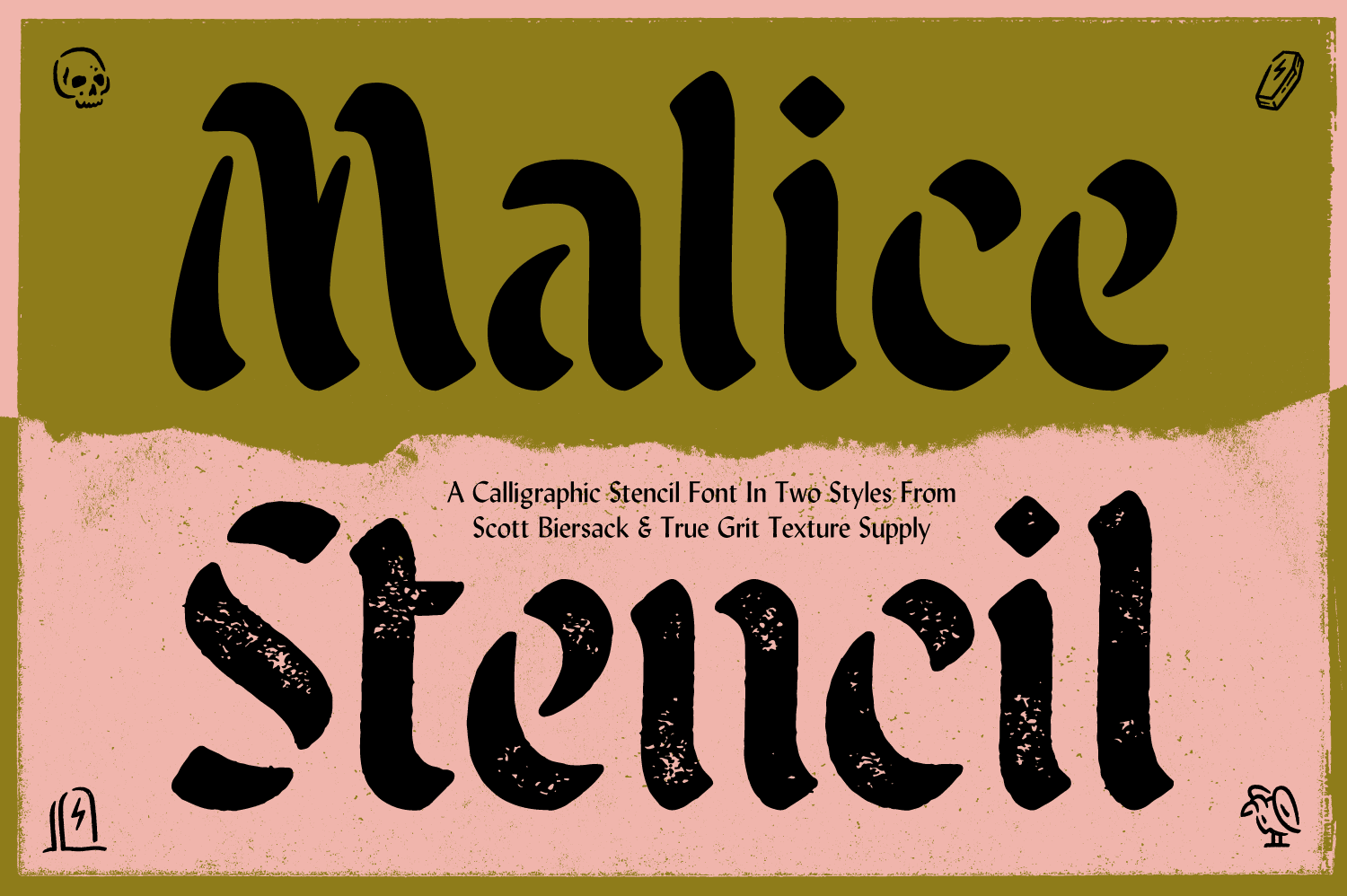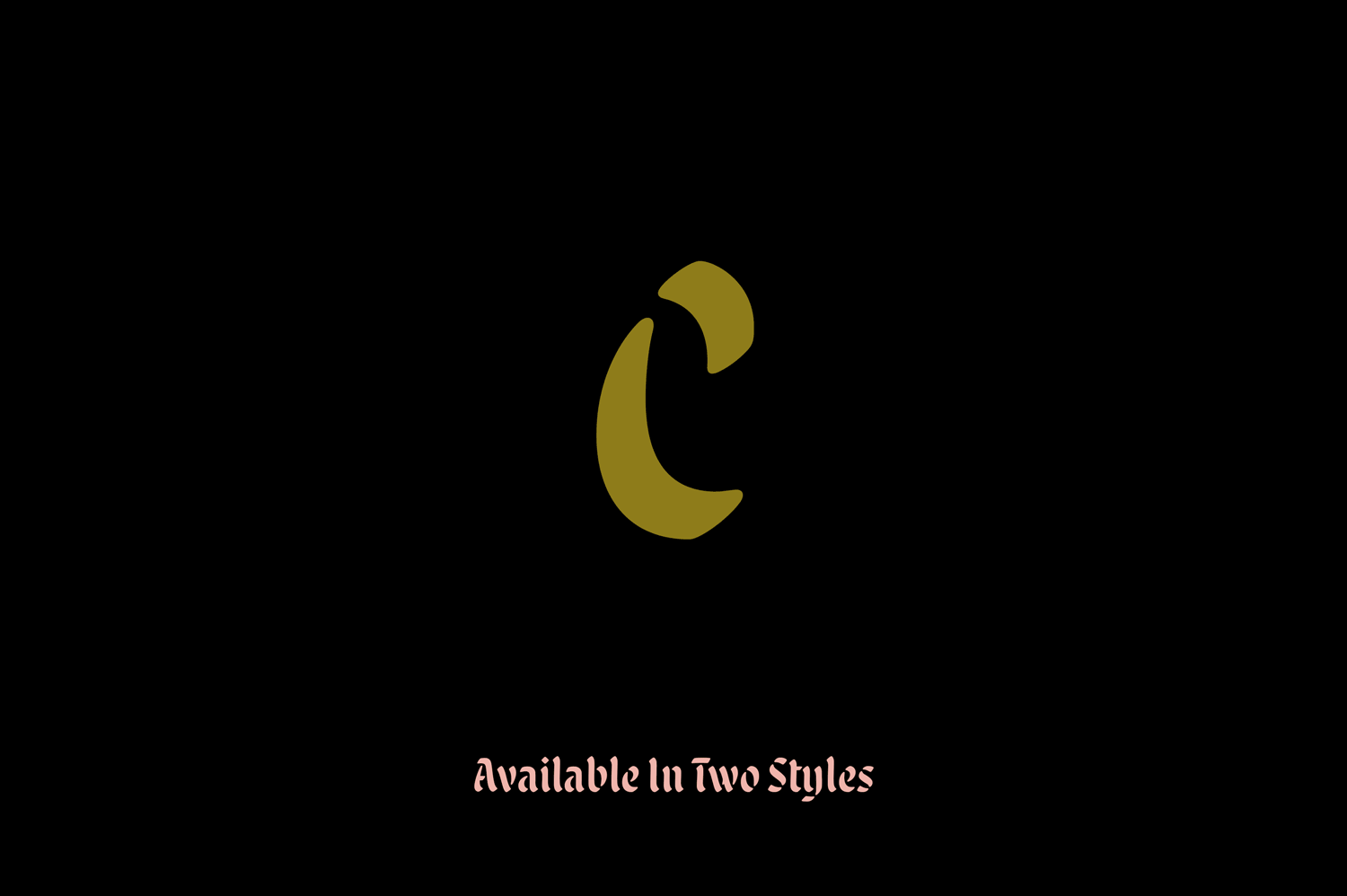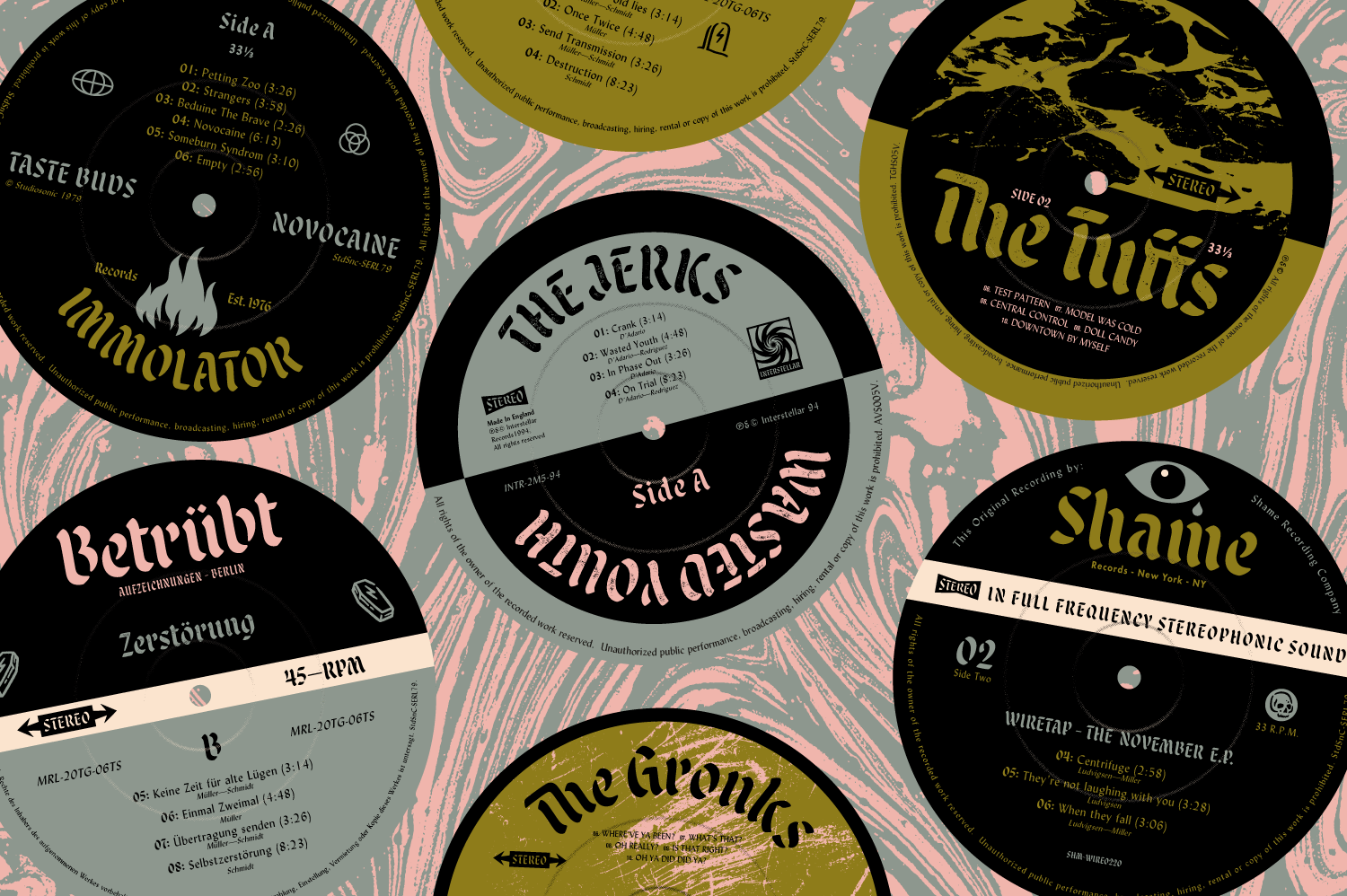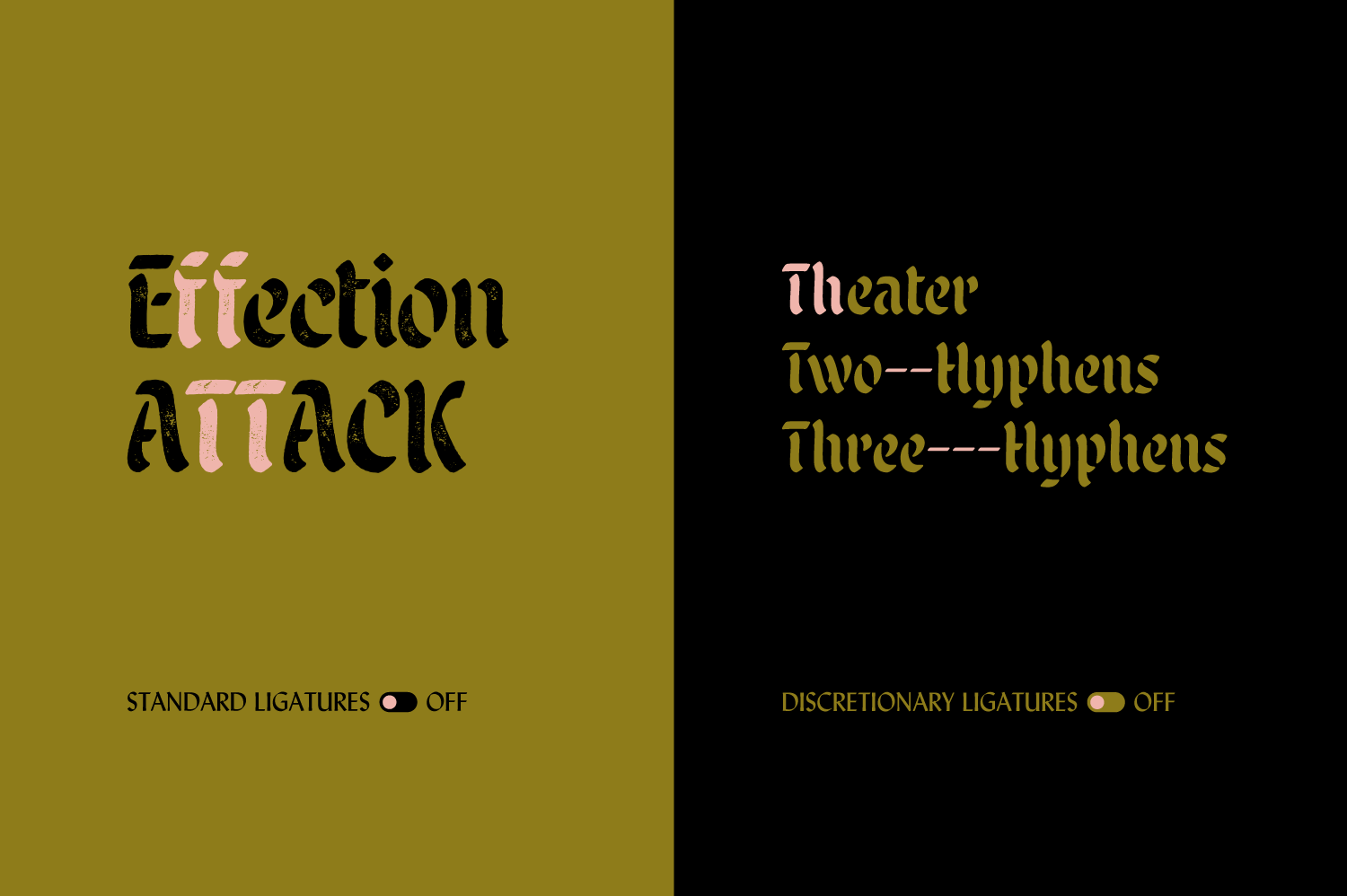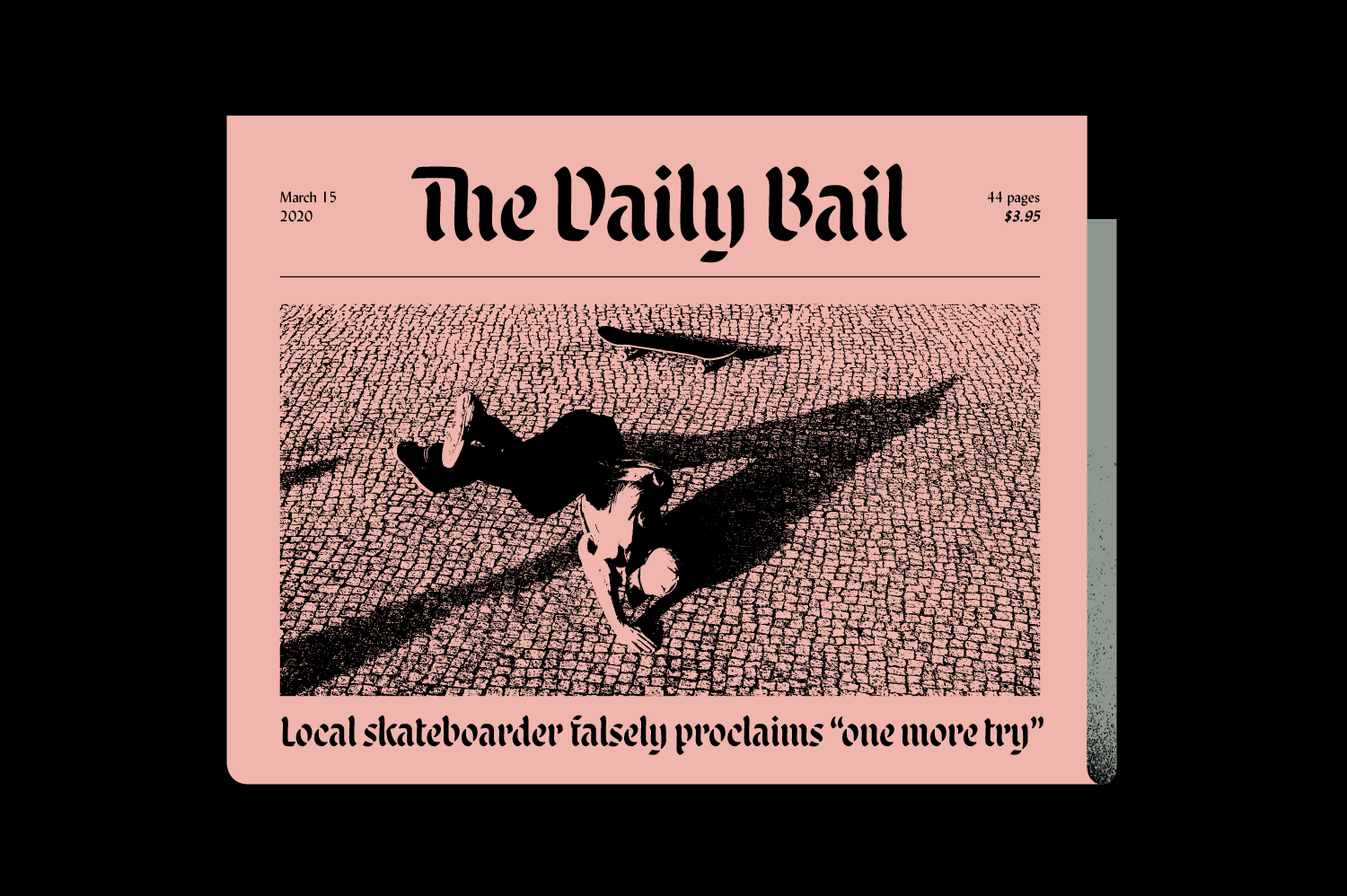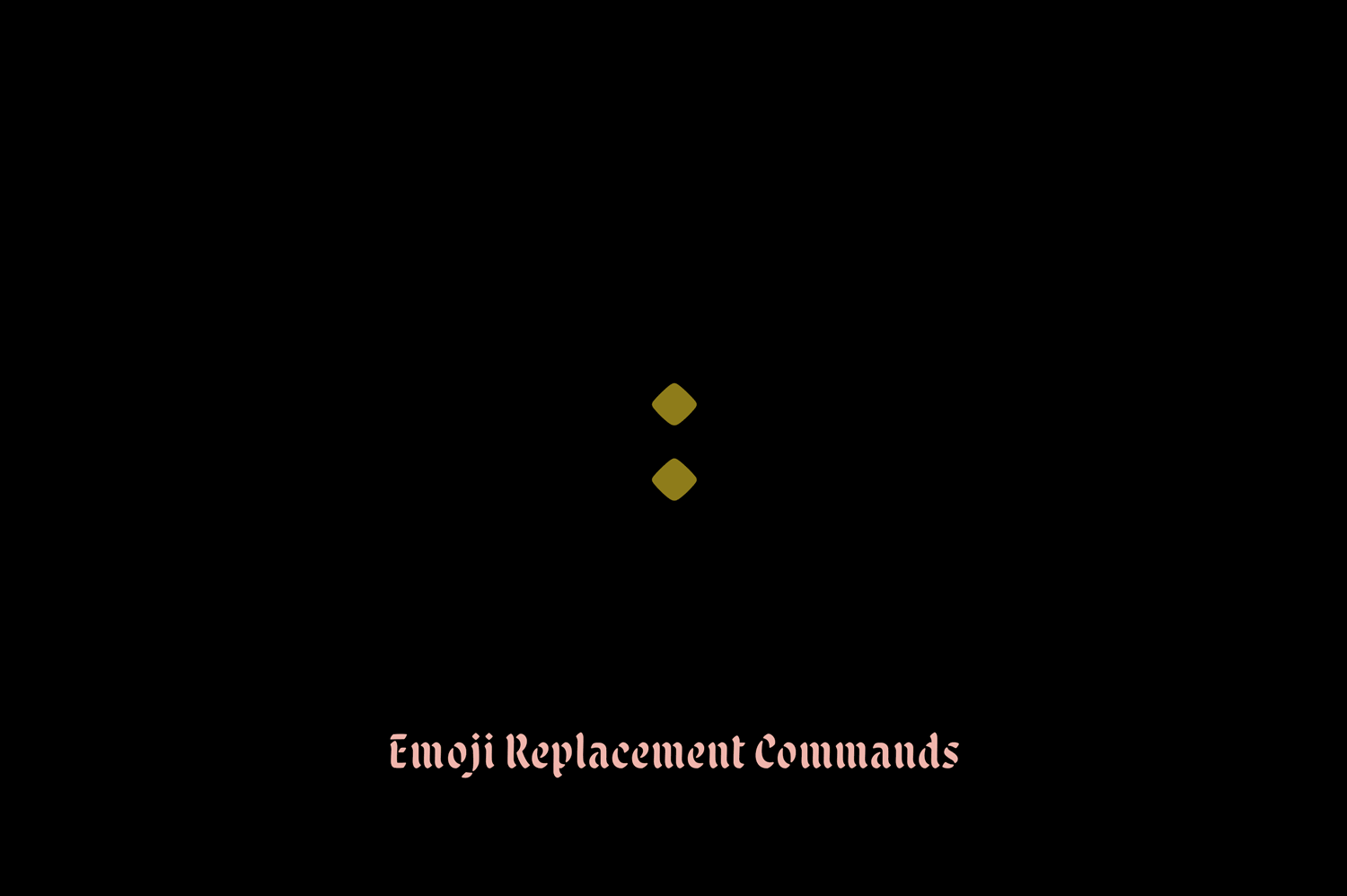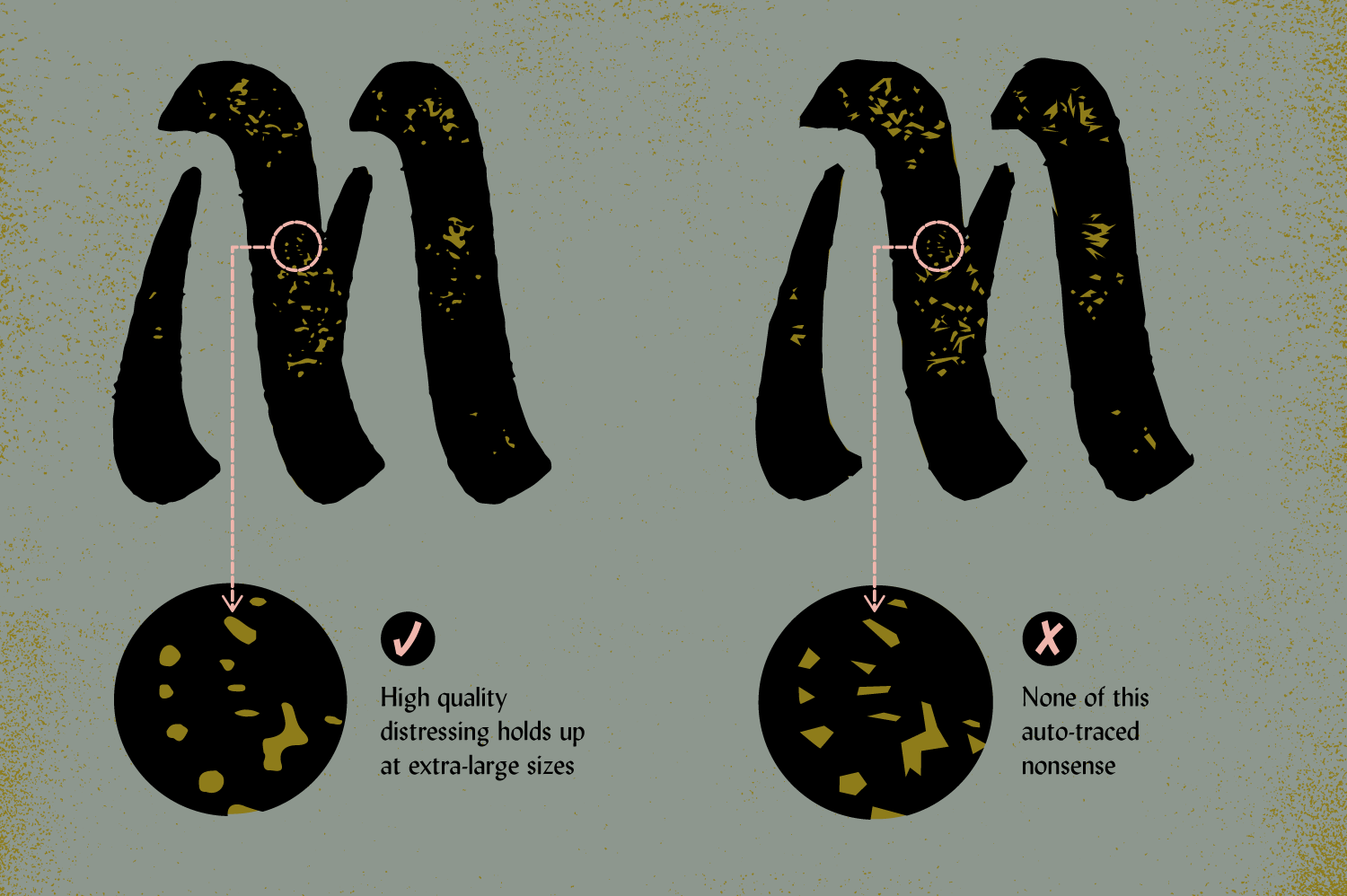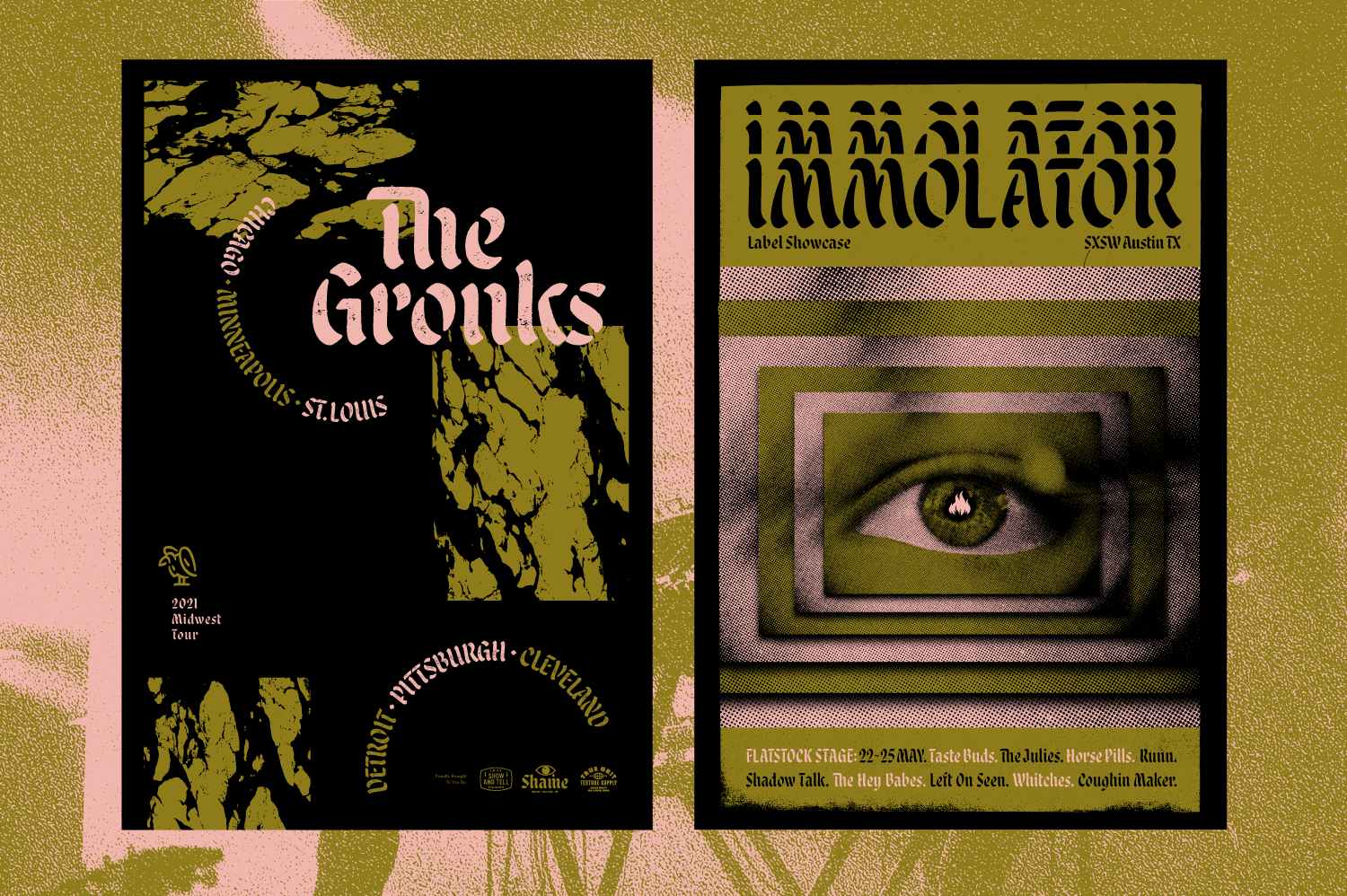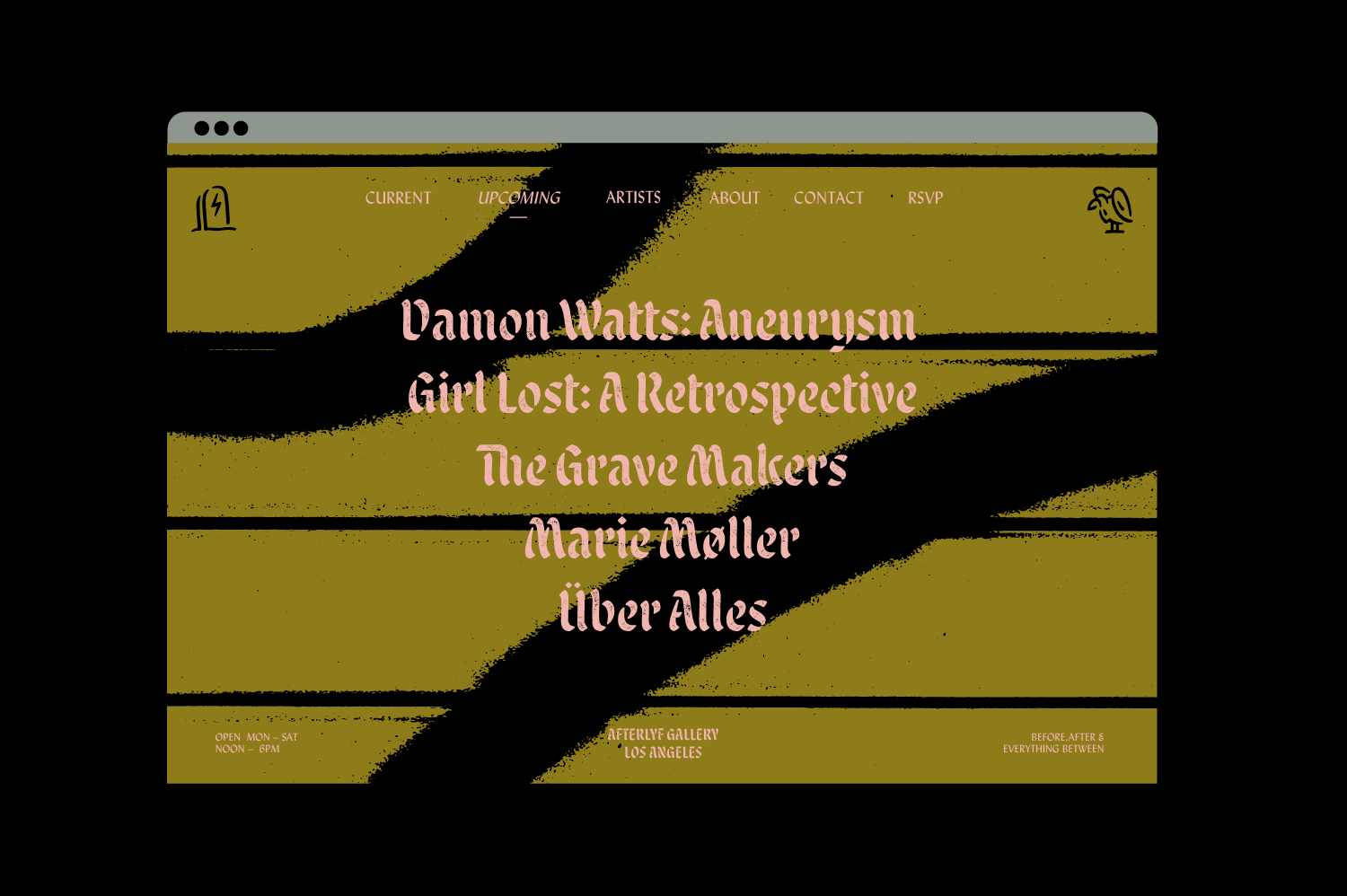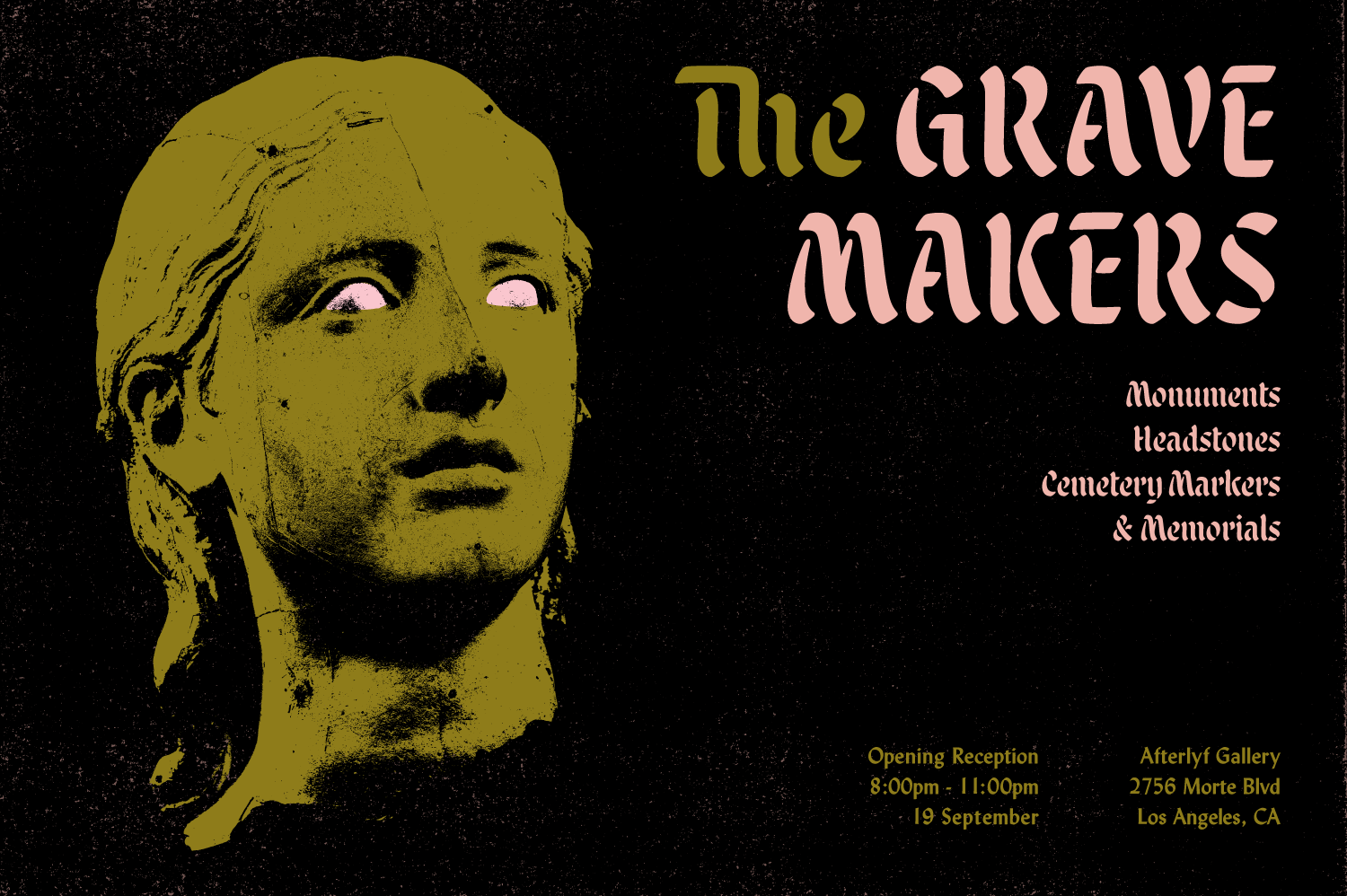
Malice Stencil is a calligraphic stencil font in two styles designed by Phoenix based type designer Scott Biersack, in collaboration with True Grit Texture Supply.
Crafted in the tradition of classic blackletter display faces, Malice Stencil embodies the humanist refinement of hand-written calligraphy with the dark spirit of a guitar amp cranked to eleven.
Key Features:
- Uppercase & lowercase characters.
- Numerals, currency symbols, standard punctuation.
- Standard & contextual ligatures.
- Alternates, ordinals and stylistic sets.
- Emoji replacement commands.
Example images and specimen feature Malice Stencil paired with Lydian.
Scott Biersack is a Phoenix-based designer specializing in custom lettering, logotypes and type design. Working under the studio moniker of youbringfire, Scott's diverse body of work ranges from playful explorations in hand lettering to meticulously crafted typeface design.